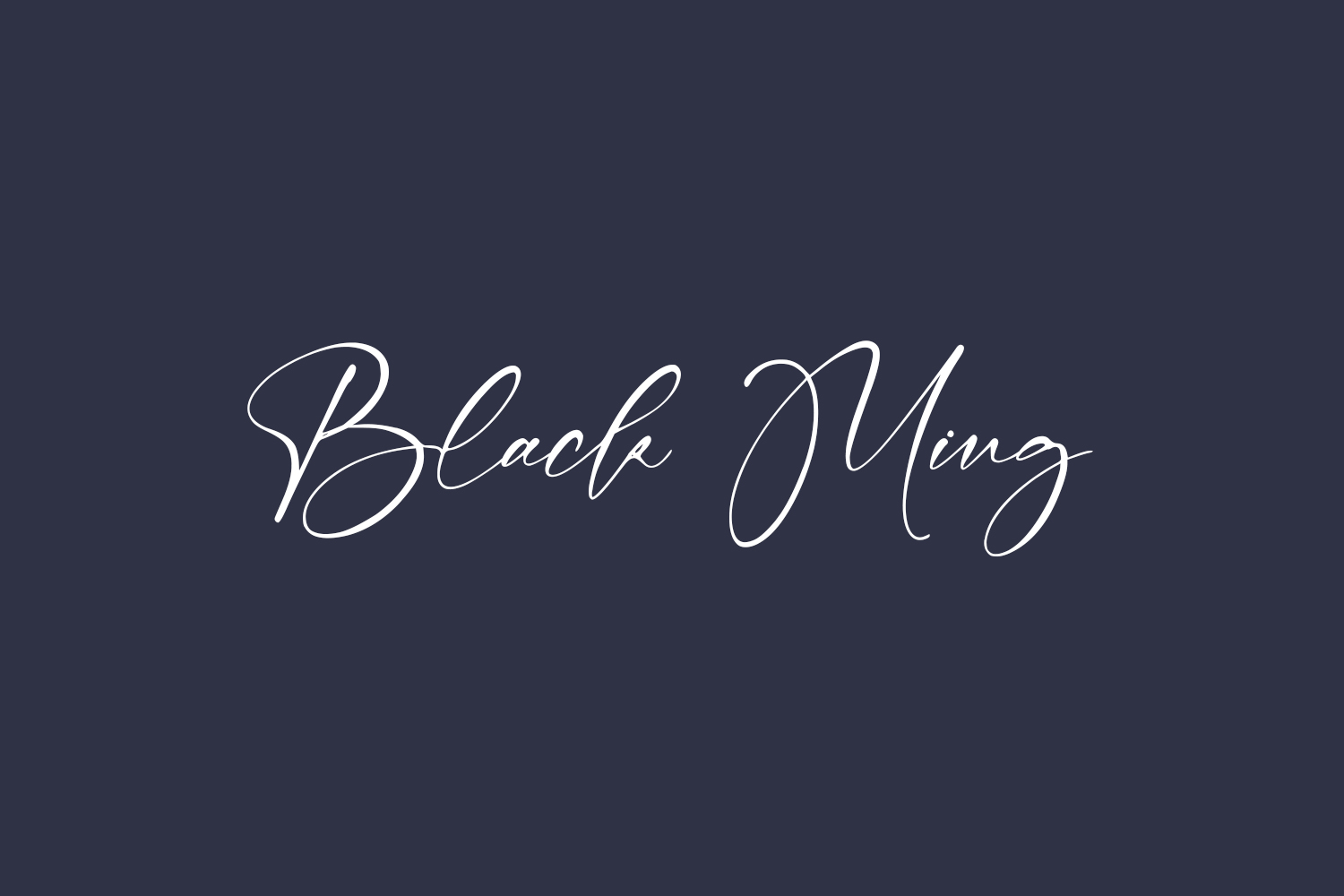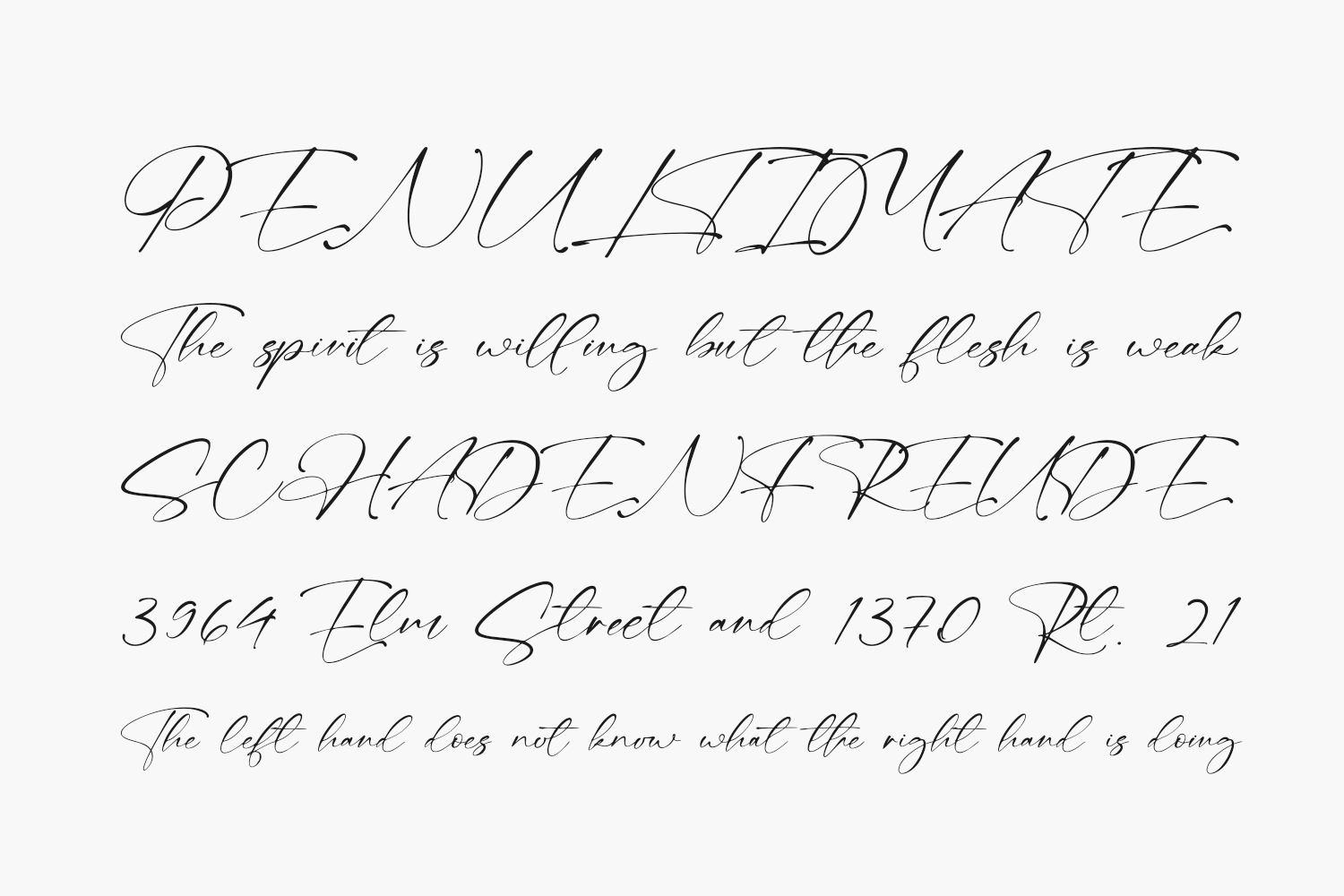
Black Ming Free Font is a stunning handwritten font meticulously crafted to capture your heart. With its elegant calligraphic undertones and modern flair, it’s destined to become your go-to choice. Elevate your projects to new heights with this exquisite font. Download the font for free if you need it for personal use or purchase the full version for commercial use.
Designed by StringLabs Creative Studio